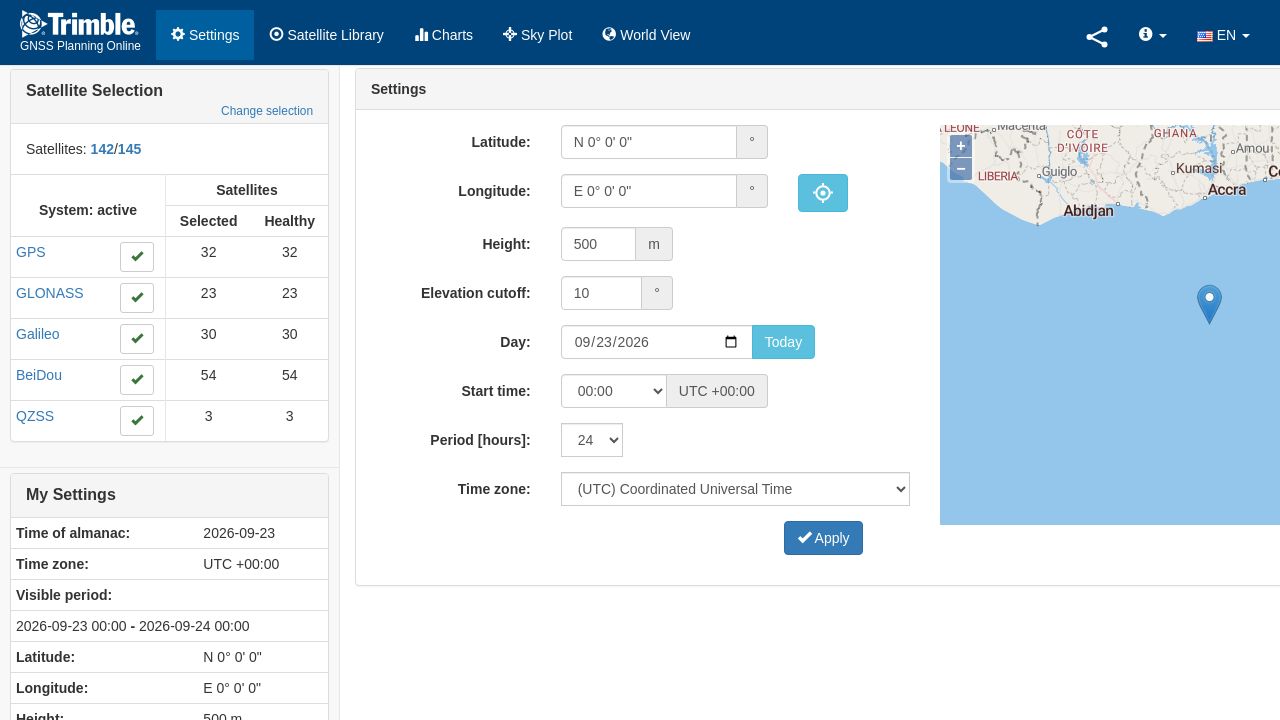
gnssplanning.com: What fonts does Gnssplanning use? - helvetica-neue, Menlo, Glyphicons Halflings
Trimble GNSS Planning
What fonts does Gnssplanning use?
No primary web font was detected on Gnssplanning.com - its CSS only lists helvetica-neue, Menlo, Arial and Helvetica as fallbacks. 8 fonts detected, last checked Sep 23, 2026.
Trimble GNSS Planning (gnssplanning.com) utilizes a distinctive combination of fonts to communicate reliability and clarity in the geospatial industry. The primary use of Helvetica Neue provides a clean and accessible look, while Menlo adds a technical touch, ideal for a professional audience. The inclusion of Glyphicons Halflings enhances the user interface, making complex information more digestible. Together, these fonts reflect the brand's commitment to precision and functionality.
Used for UI icons rather than readable text - no preview available.
Frequently asked questions about Gnssplanning.com's fonts
What fonts does Gnssplanning.com use?
No primary web font was detected on Gnssplanning.com - its CSS only lists helvetica-neue, Menlo, Arial and Helvetica as fallbacks. 8 fonts detected, last checked Sep 23, 2026.
What fonts are used on gnssplanning.com?
The primary fonts on gnssplanning.com include Helvetica Neue, Menlo, and Glyphicons Halflings, with fallback options like Arial and Consolas.
How do the fonts on gnssplanning.com compare to other options?
Helvetica Neue offers a more versatile alternative to Arial, while Menlo is favored for coding over typical monospace fonts like Courier New, providing better readability.
What styles and weights are available for the fonts on gnssplanning.com?
On gnssplanning.com, Helvetica Neue is used in a regular weight of 400, while Menlo is also utilized in weight 400, providing consistency across text elements.